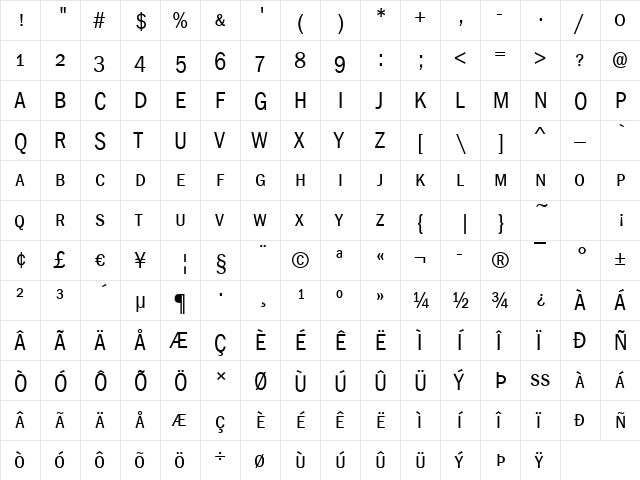
FranklinGothic-Cd-Caps Book
Design Context for FranklinGothic-Cd-Caps Typeface
FranklinGothic-Cd-Caps takes a clean, functional approach — its unadorned letterforms prioritise legibility and work reliably across screen and print environments.
Font Pairing: Works well alongside a characterful serif or display font that can carry the expressive load while FranklinGothic-Cd-Caps handles the functional copy.
Pro Tip: Pair FranklinGothic-Cd-Caps with a display or serif font for headlines — its neutral character makes it an excellent supporting player in complex typographic systems.